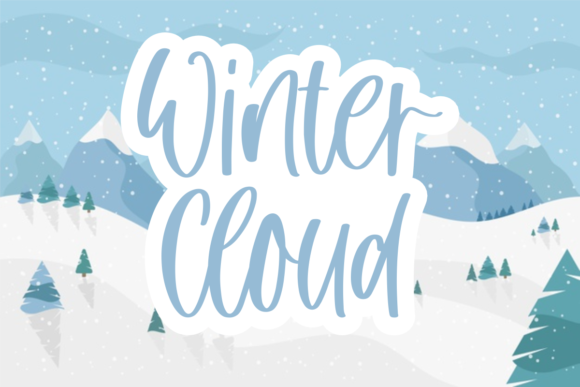
Discover Winter Cloud Font, a charming script font that exudes elegance and modernity. Its graceful strokes and delicate curves are akin to a gentle breeze, evoking a sense of warmth and familiarity. With its refined style, it's a perfect choice for adding a touch of sophistication to your creative endeavors. Immerse yourself in its versatility and let it ignite your imagination.
Born from the creative vision of Fikryal Studio, Winter Cloud Font captivates with its authentic feel. It's as though each letter has been meticulously crafted with love and intention. Its seamless flow is reminiscent of a gentle stream, guiding your eyes through your designs with effortless grace. Whether you're creating heartfelt wedding invitations or eye-catching social media posts, Winter Cloud Font will elevate your work to new heights.
Step into the world of Winter Cloud Font and let your creativity soar. Its timeless beauty and wide range of applications make it a must-have for any designer's toolkit. Embrace the endless possibilities it offers and transform your projects into unforgettable masterpieces. Experience the magic of Winter Cloud Font today and let your designs shine with brilliance.